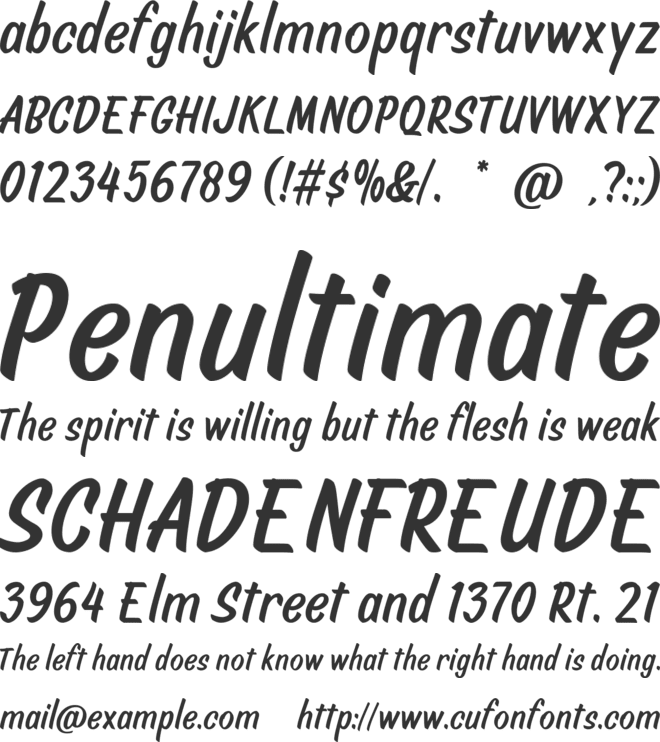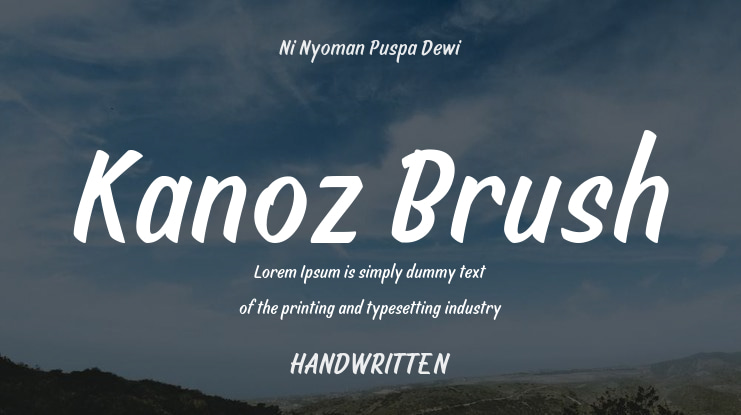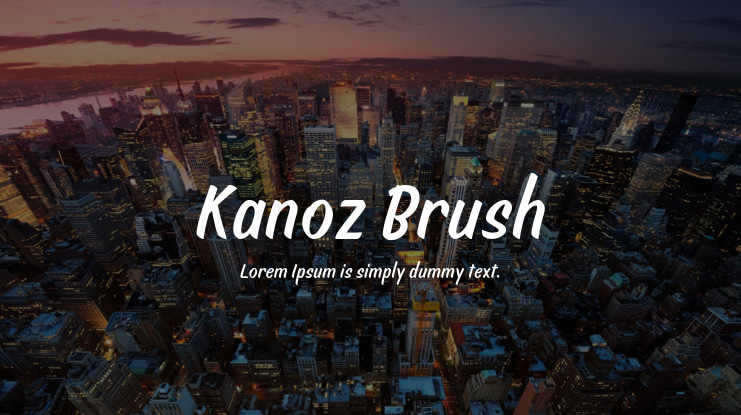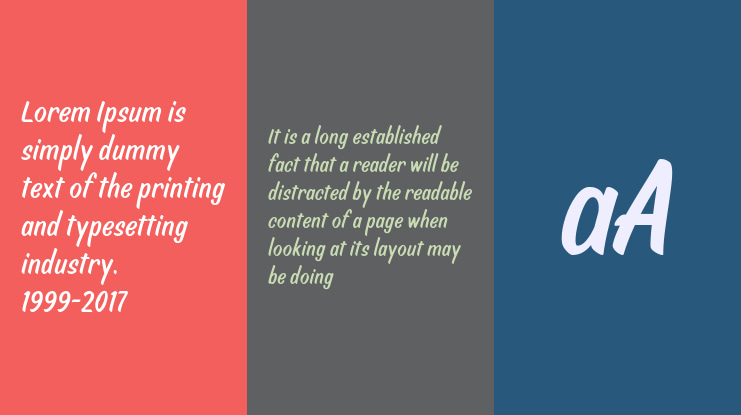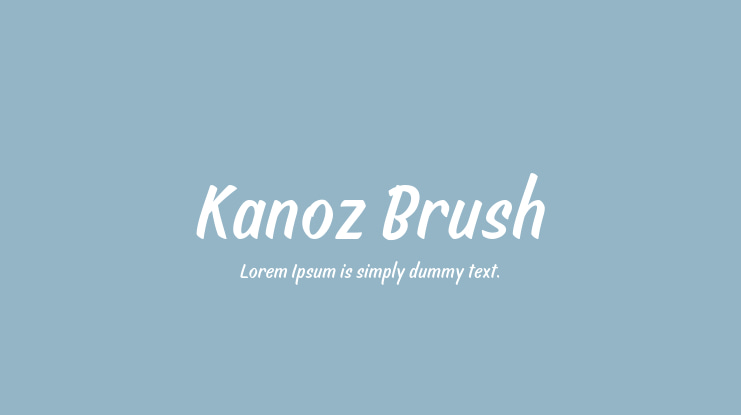
Kanoz Brush Font
Ni Nyoman Puspa Dewi
The Kanoz Brush Typeface is a beautifully designed font that combines the essence of vintage sign art with a modern flair. Inspired by the traditional hand-painted signs, this typeface features bold, sweeping brush strokes and a natural, textured appearance, offering an authentic, handcrafted touch to any design project.